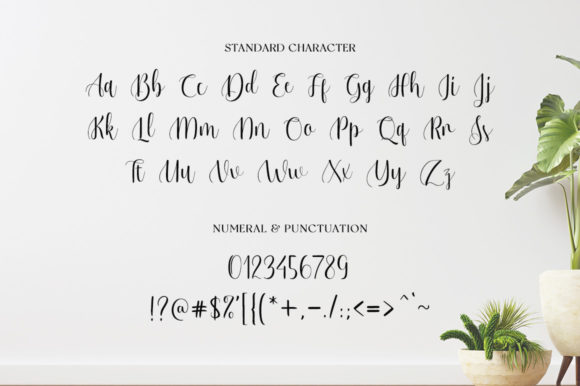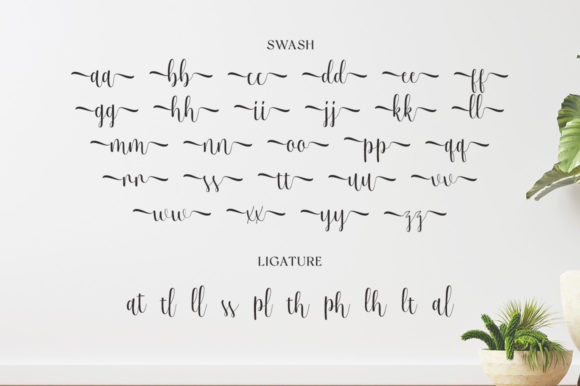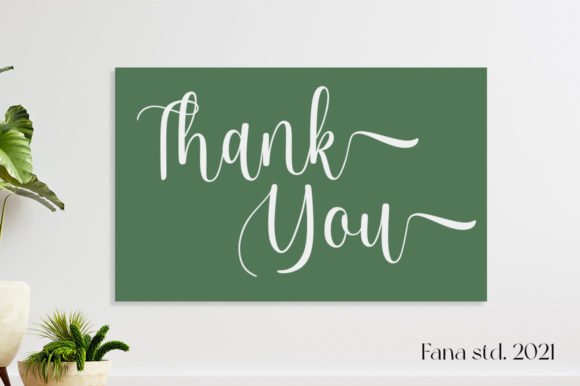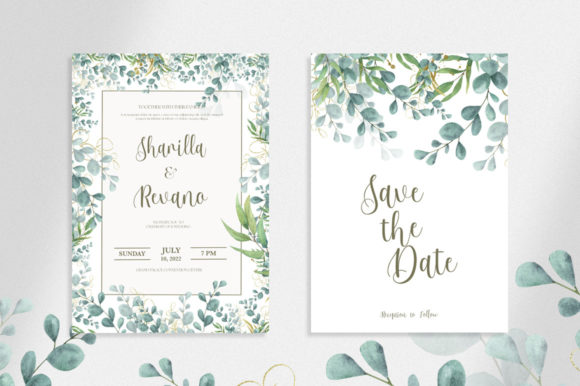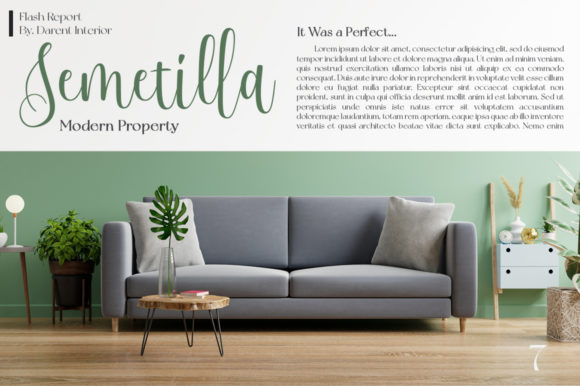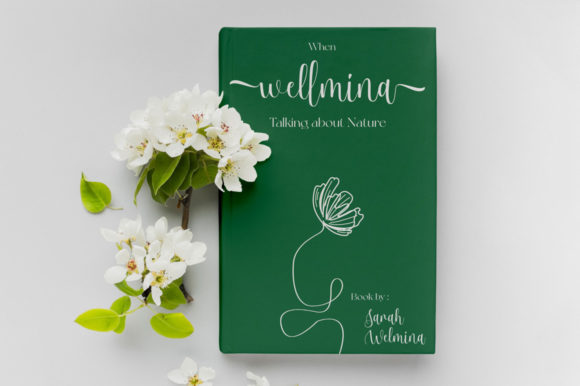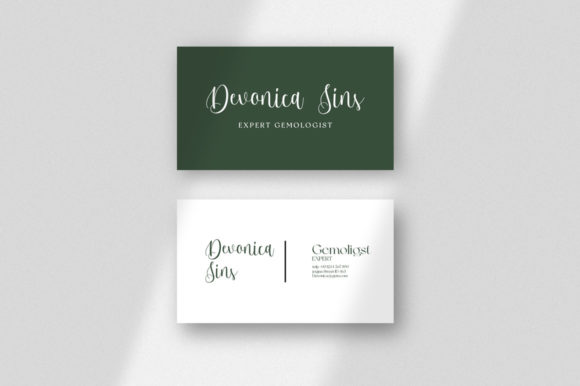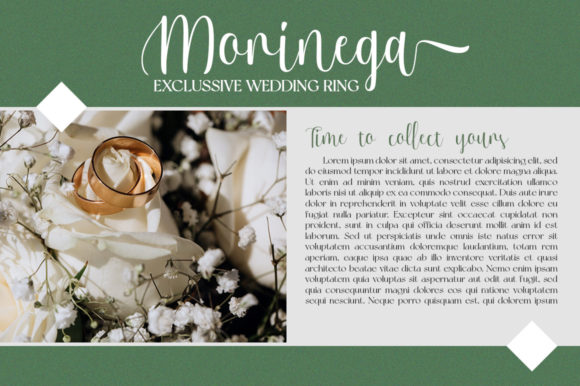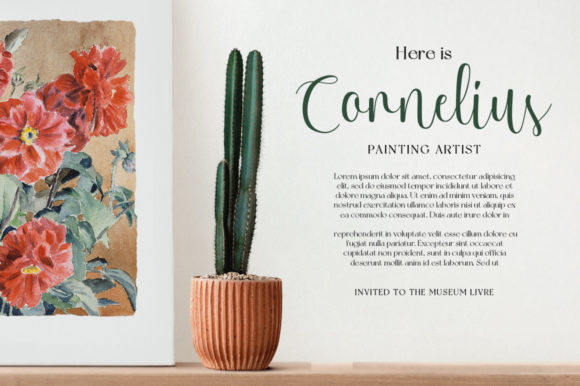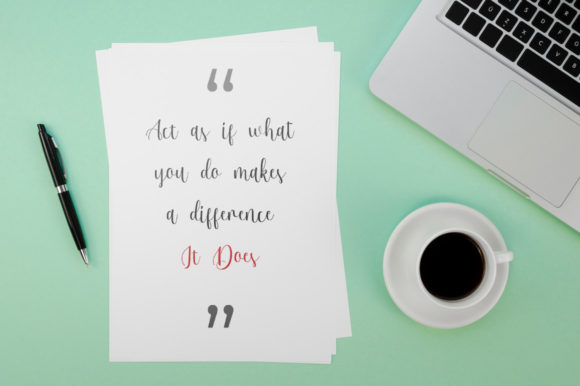
Sellena Script Font
About Sellena Script Font
Sellena Script is a delicate, elegant and flowing handwritten font. It has beautiful and well balanced characters and as a result, it matches a wide pool of designs. This font is PUA encoded which means you can access all of the glyphs and swashes with ease!